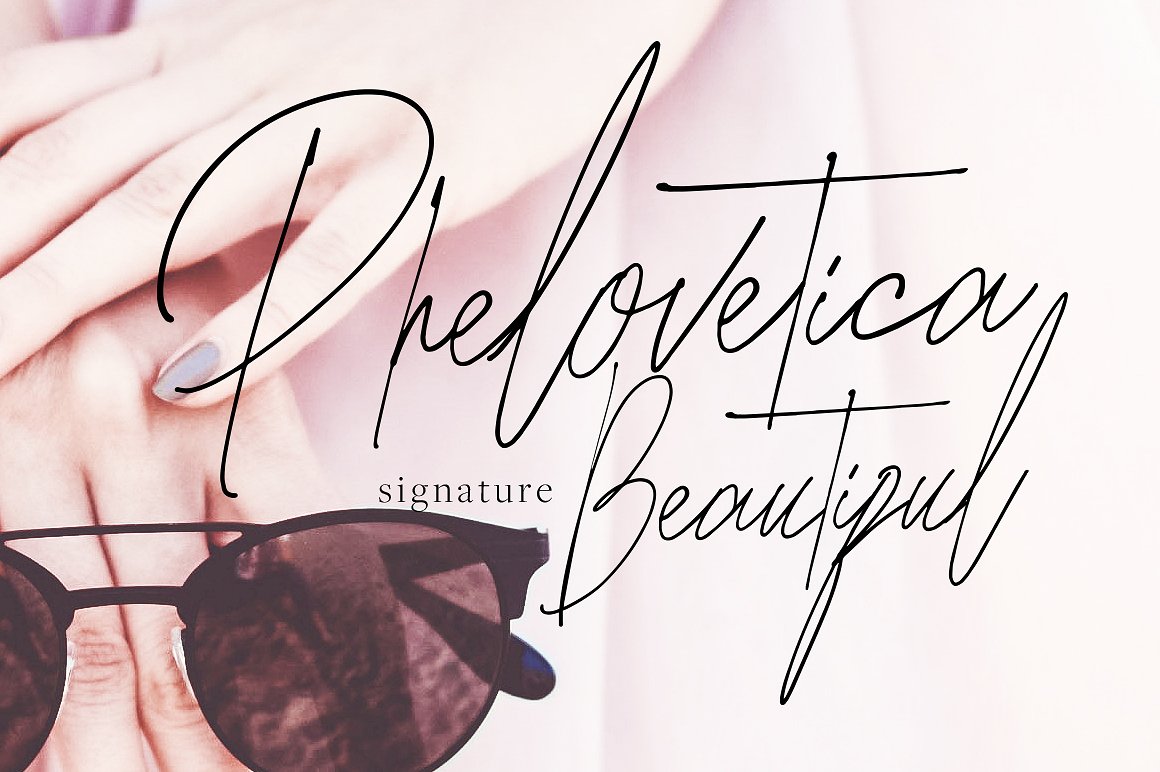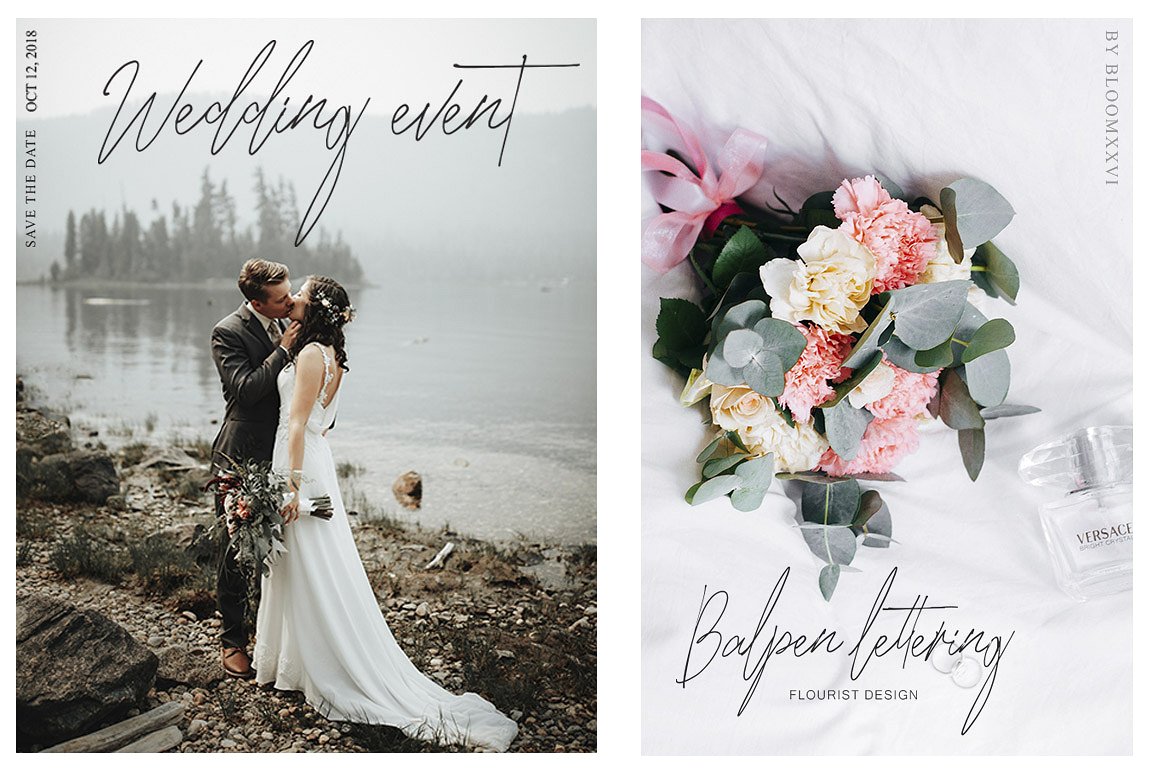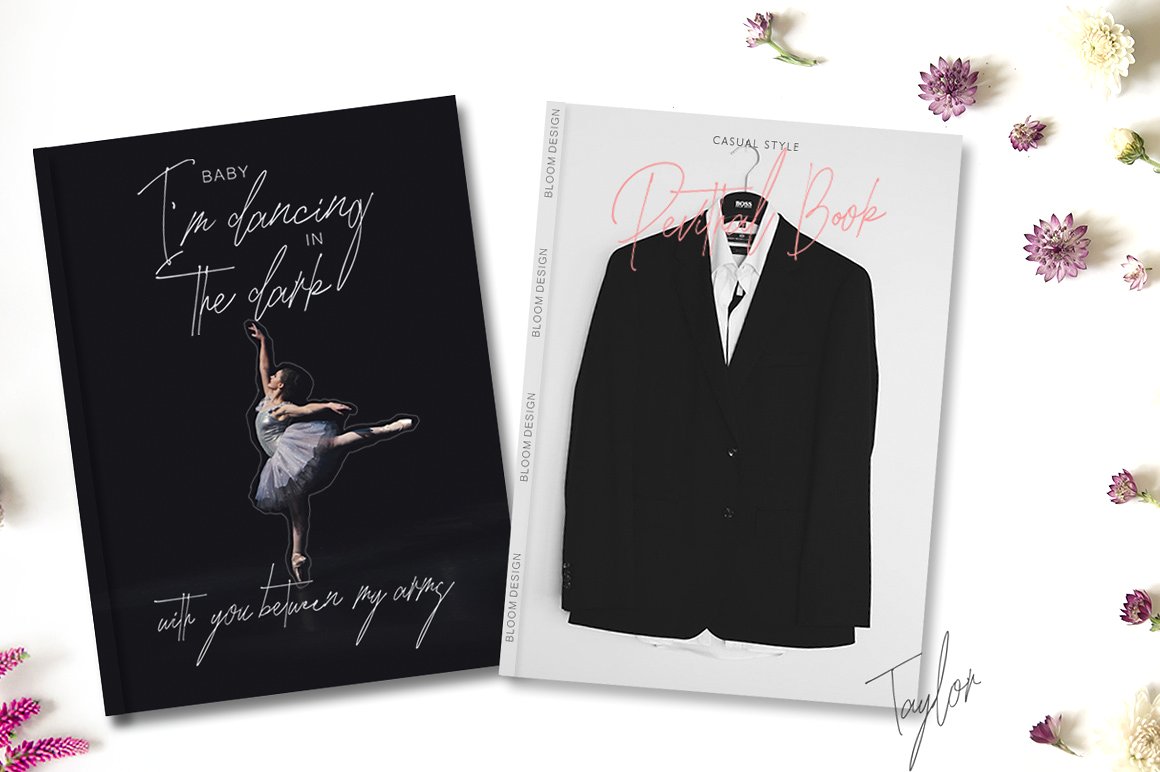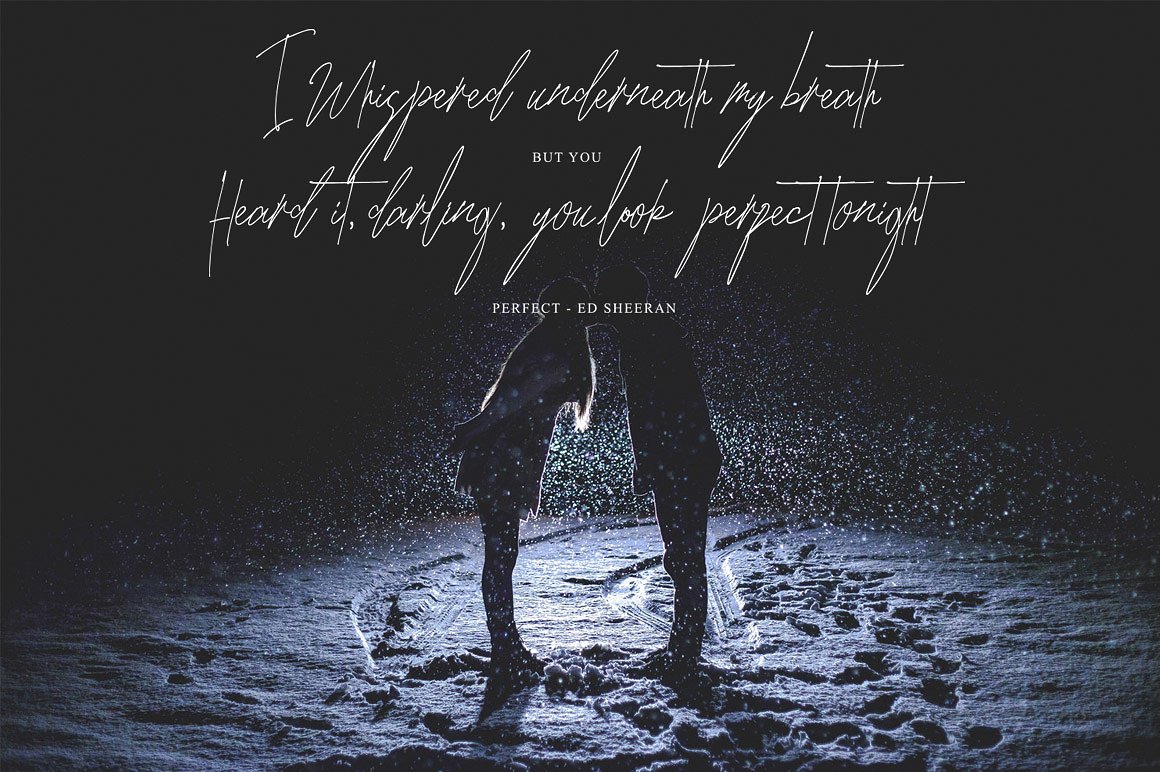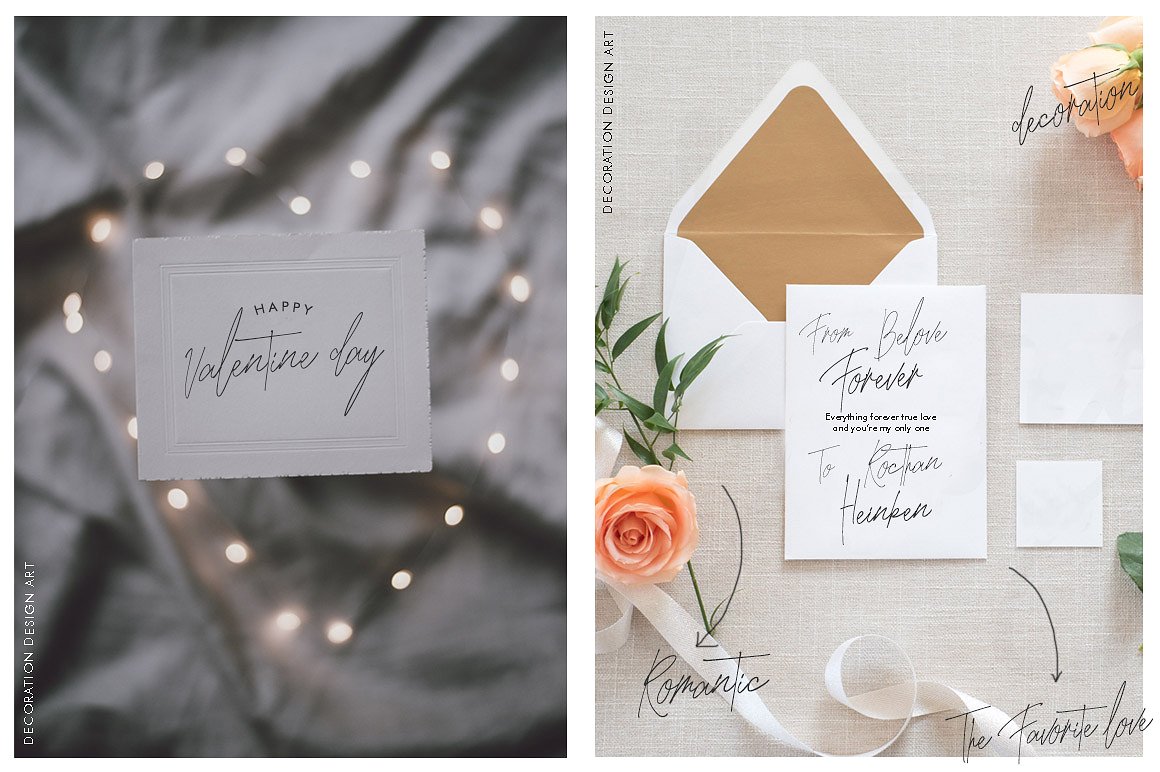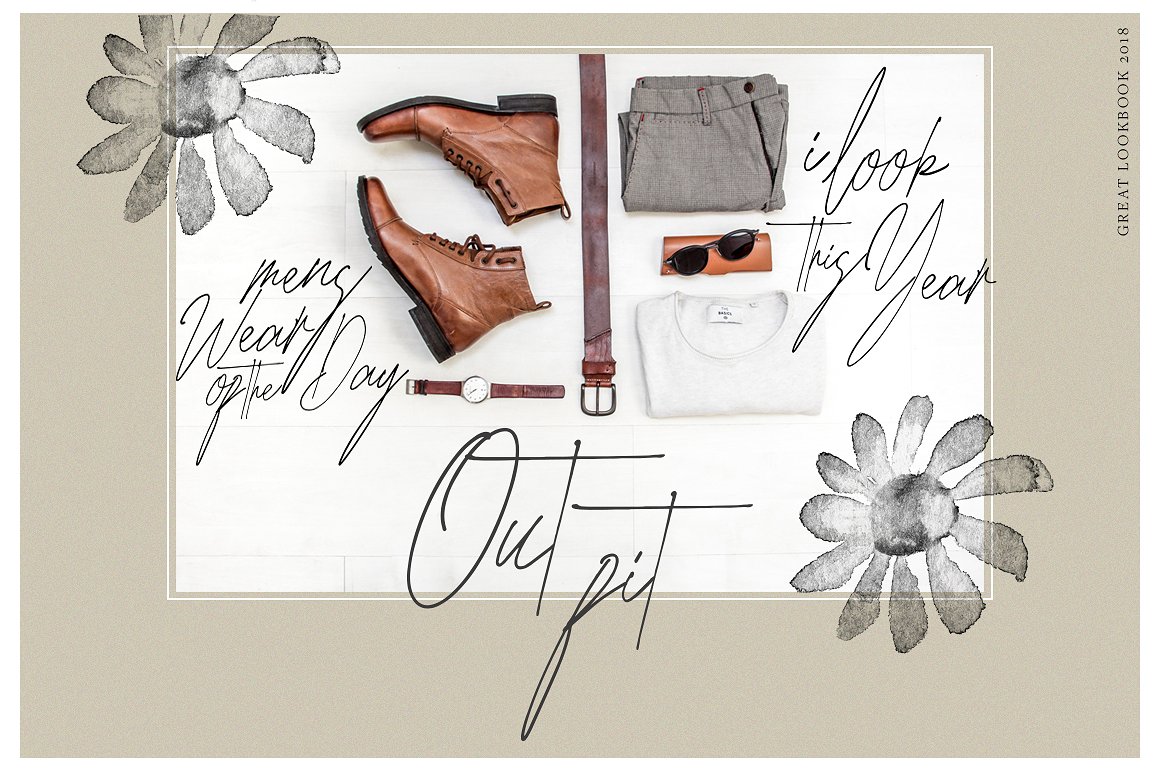
Phelovetica Font
Phelovetica, a modern, feminine script.
This handcrafted type is elegant and features fine, thin letters. Special attention has been paid to carefully kern all the letter pairs, resulting in a natural flow.